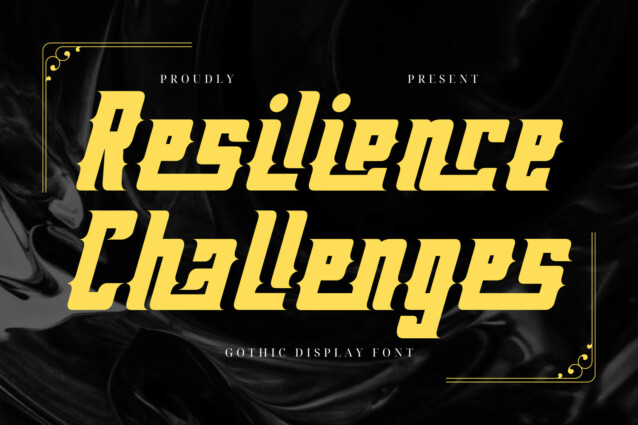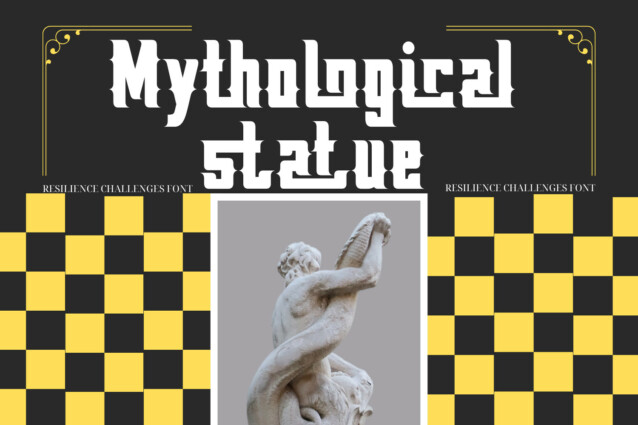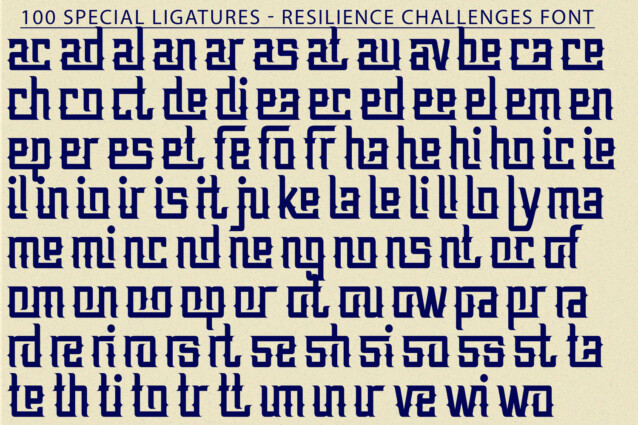
Resilience Challenges Font is an old fashioned typeface ,come up with clean and letterpress style, regular and italic with extra ornaments and symbols. The font is inspired by the Vintage Motorcycle classic font style with a few combine to turn them into a bit of a Vintage Western style. This font is reguler character style, included as the Uppercase and lowercase regular character, numeral and multilingual support. It’s great for any kind of display purpose from branding, emblem, advertising , t-shirt , etc you name it.
Resilience Challenges was built with OpenType features and includes 100 ligatures, alternate, numbers, punctuation, and it also supports other languages.
ac ad al an ar as at au av be ca ce ch co ct de di ea ec ed ee el em en ep er es et fe fo fr ge ha he hi ho ie ic il in io ir is it ju ke la le li ll lo ly ma me mi nc nd ne ng no nt ns oc of om on oo op or ot ou ow pa pr ra rd re ri ro rs rt se sh si so ss st ta te th ti to tr tt um un ur ve wi wo